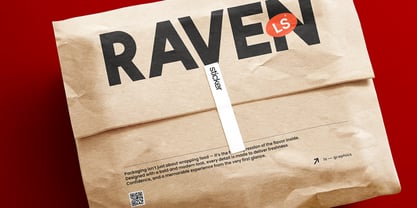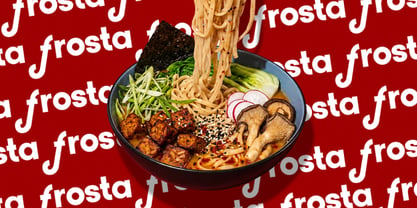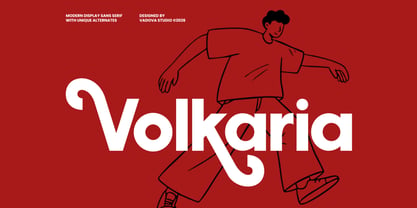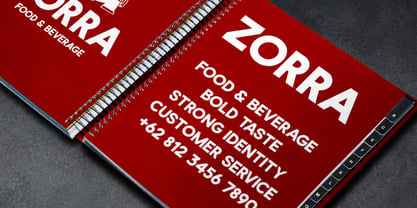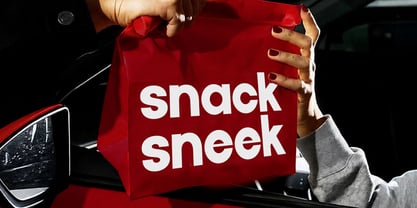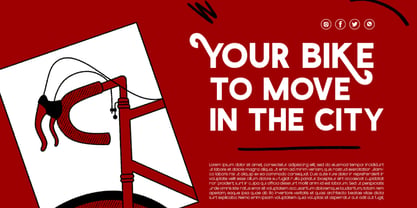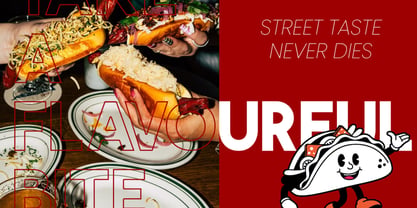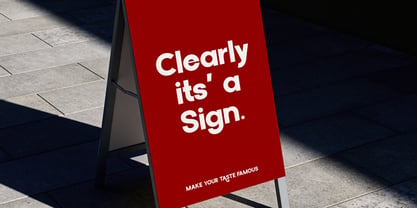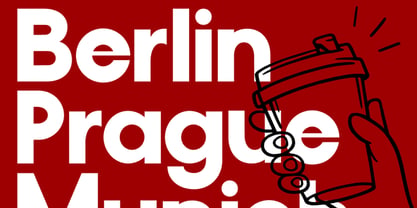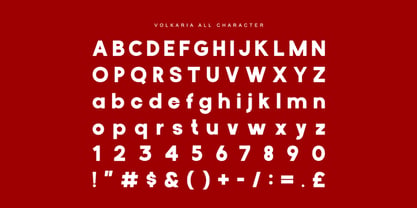
Volkaria
Die Schriftfamilie Volkaria entworfen und von Vadova Std veröffentlicht. Volkaria enthält 1 Stile. Mehr über diese Familie
Volkaria Modern Display Sans Serif features a bold geometric structure with playful alternate characters and strong contemporary styling. The font includes uppercase, lowercase, numerals, punctuation, and unique curved alternates that create a fresh and expressive visual identity.
Relevance & Use Cases is relevant for branding projects, social media campaigns, poster designs, packaging concepts, advertising visuals, editorial layouts, merchandise graphics, and modern business promotions. Its bold sans serif appearance and playful alternate details create a strong visual presence suitable for cafes, fashion brands, lifestyle products, creative agencies, music promotions, and youthful modern campaigns.